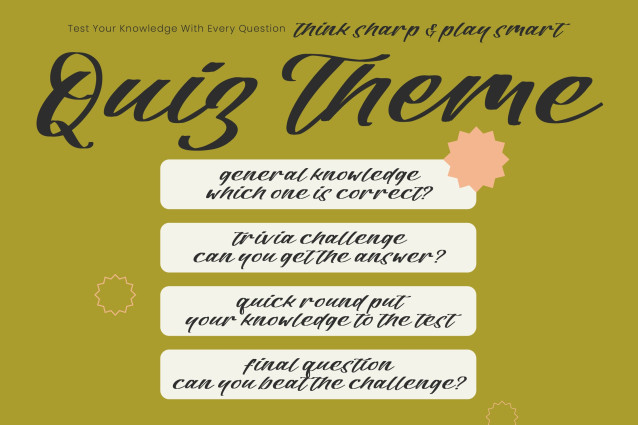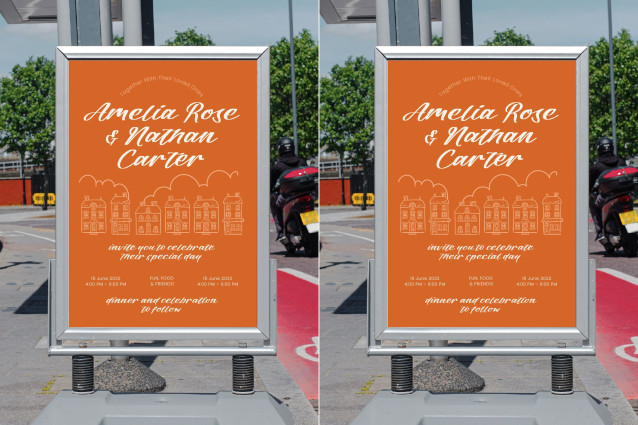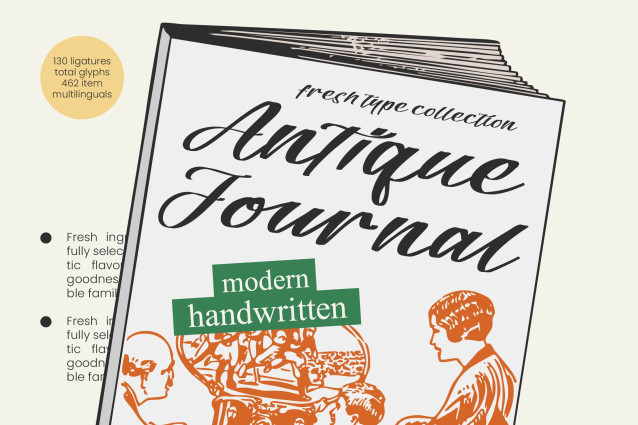
Antique Journal – Modern Handwritten
Elevate your creative projects with the timeless elegance of Antique Journal – Modern Handwritten. This exquisite typeface masterfully blends vintage calligraphy with a contemporary aesthetic, offering a sophisticated look that resonates with discerning audiences. Its fluid strokes and high-contrast design capture the essence of a personalized signature, ensuring your headers and titles exude an aura of exclusive craftsmanship and high-end style.
Unleash unparalleled creativity using the comprehensive features integrated within Antique Journal – Modern Handwritten. Boasting an impressive collection of 130 ligatures and 462 total glyphs, this font provides the organic flow and natural rhythm of authentic handwriting. The hand-drawn texture and graceful curves make it an essential tool for designers seeking to add a personal touch to their digital and print media, ensuring every character feels unique and intentional.